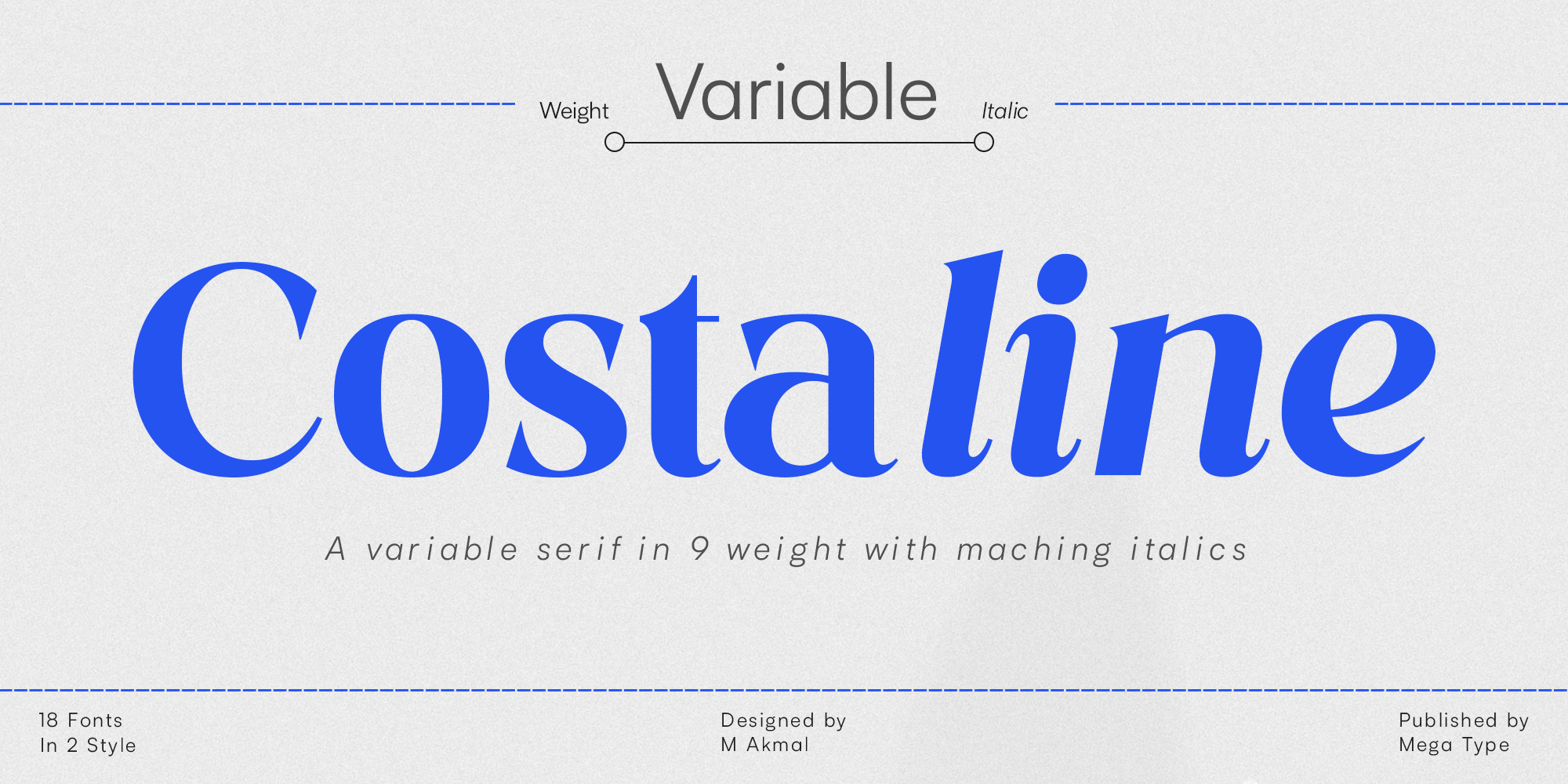
Costaline Font is perfect for coastal-inspired design applications including beach resort branding, nautical themes, vacation marketing, coastal lifestyle magazines, surfwear graphics, marine equipment signage, waterfront restaurant menus, and tropical hospitality projects. This distinctive typeface captures the relaxed elegance of seaside living and oceanic adventures.
What makes Costaline Font exciting is its unique ability to evoke the natural flow and rhythm of coastal environments through carefully crafted letterforms. The font features organic curves and fluid lines that mirror the movement of waves and tides, creating an immediate visual connection to maritime aesthetics. Its relaxed sophistication appeals to audiences seeking escape and natural beauty.
The Costaline Font family includes various coastal-inspired styles such as Regular, Light, Bold, and decorative wave alternates that enhance the oceanic theme. These complementary options provide extensive design flexibility for creating cohesive coastal branding systems that capture the essence of seaside environments.
This specialized display typeface brings authentic coastal charm to contemporary design projects. Hospitality brands and lifestyle companies choose Costaline Font Free Download for its exceptional ability to communicate relaxation and natural beauty. The font's maritime inspiration makes it ideal for vacation destinations, coastal real estate, and lifestyle brands that want to evoke the peaceful sophistication of oceanfront living. Its distinctive character ensures memorable brand recognition while maintaining the tranquil aesthetic that defines exceptional coastal design experiences.